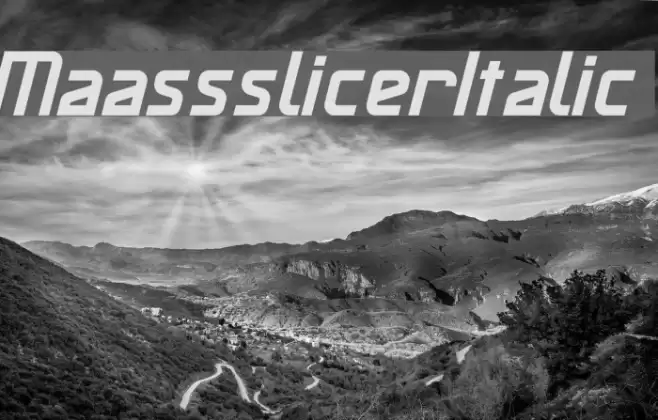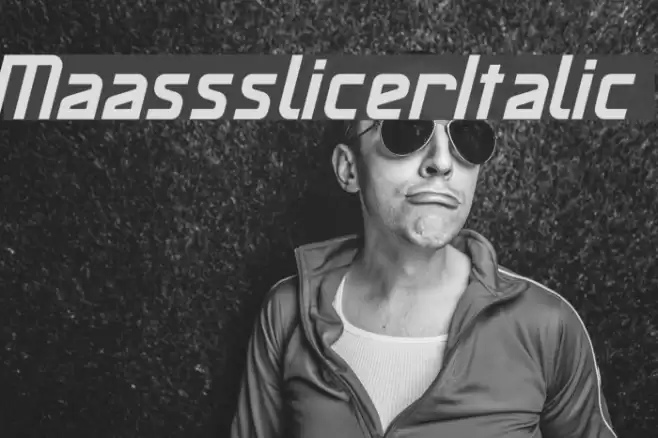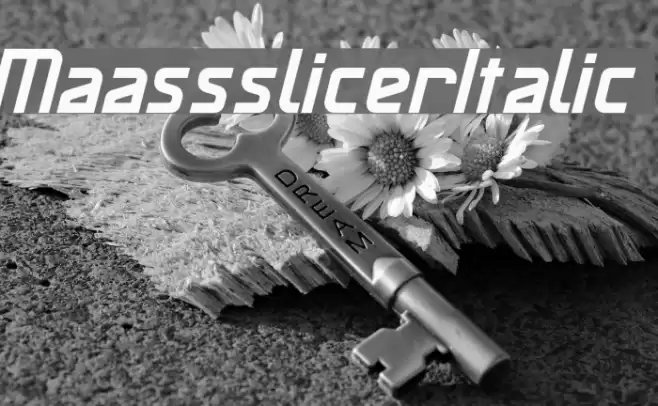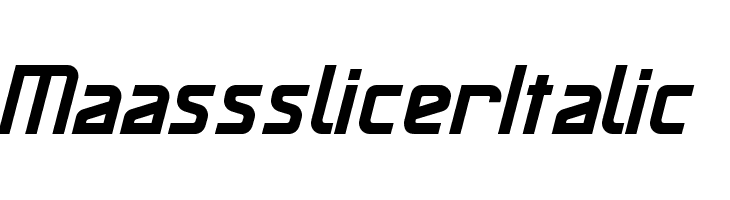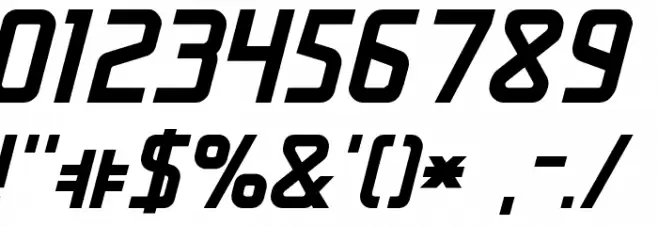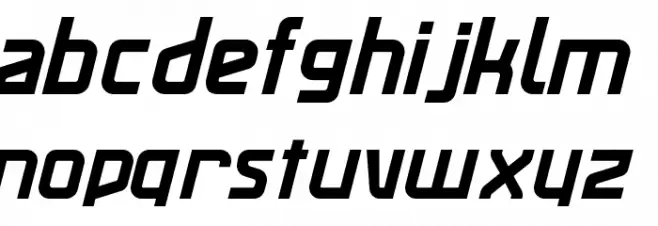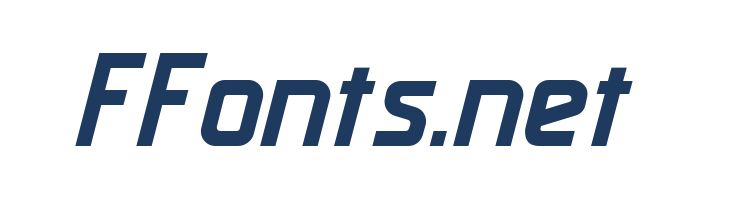
MaassslicerItalic Font
MaassslicerItalic Description
This font features a dynamic and modern design with a distinct italic slant, giving it a sense of motion and energy. The characters are bold and slightly condensed, with clean lines and sharp angles that contribute to its contemporary look. The uppercase and lowercase letters maintain a consistent style, while the numerals are clear and easily readable. Special characters are well-integrated, maintaining the overall aesthetic. The font's design is suitable for projects that require a bold and modern touch, making it ideal for headlines, posters, and branding materials.
A bold, italic, and modern font with a dynamic slant and clean lines from Uncategorized fonts.
- Proposed Projects: Ideal for use in headlines, posters, branding, and advertising materials.